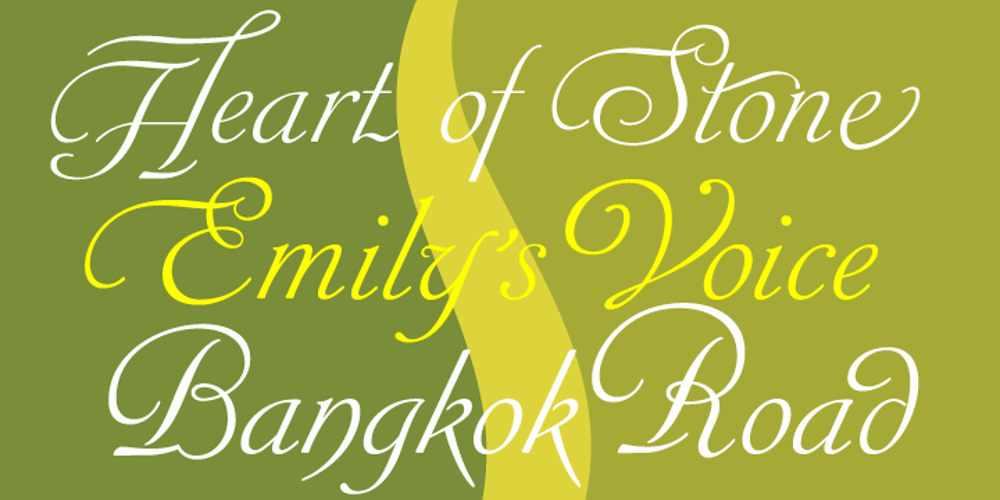
Siren Script
Siren Script font
Siren Script Font Family was designed by Rebecca Alaccari, Patrick Griffin and published by Canada Type. Siren Script contains 5 styles and family package options. Siren Script takes its cue from BB&S’s Stationers Semiscript (metal, 1899) and its countless imitations/inspirations from throughout the 20th century, particularly a variety of uncredited film faces from the 1960s. What makes this kind of script stand out in the genre is its mixing of flourished majuscules with mostly subdued, traditional minuscules. The result is a balance between formal and informal lettering, as if the letterer is applying his or her learned art without going into full-throttle calligraphy. The message is clearly and gracefully delivered, and the artistic endeavor is fully appreciated without causing coronaries. The Siren Script family comes in four full fonts, and a fifth one that contains alternates, ending letters, and some ligatures. Siren Script Pro combines all five fonts into a single one of over 880 characters, which includes programming for push-button stylistic alternates, class-based kerning, and other glyph palette conveniences.